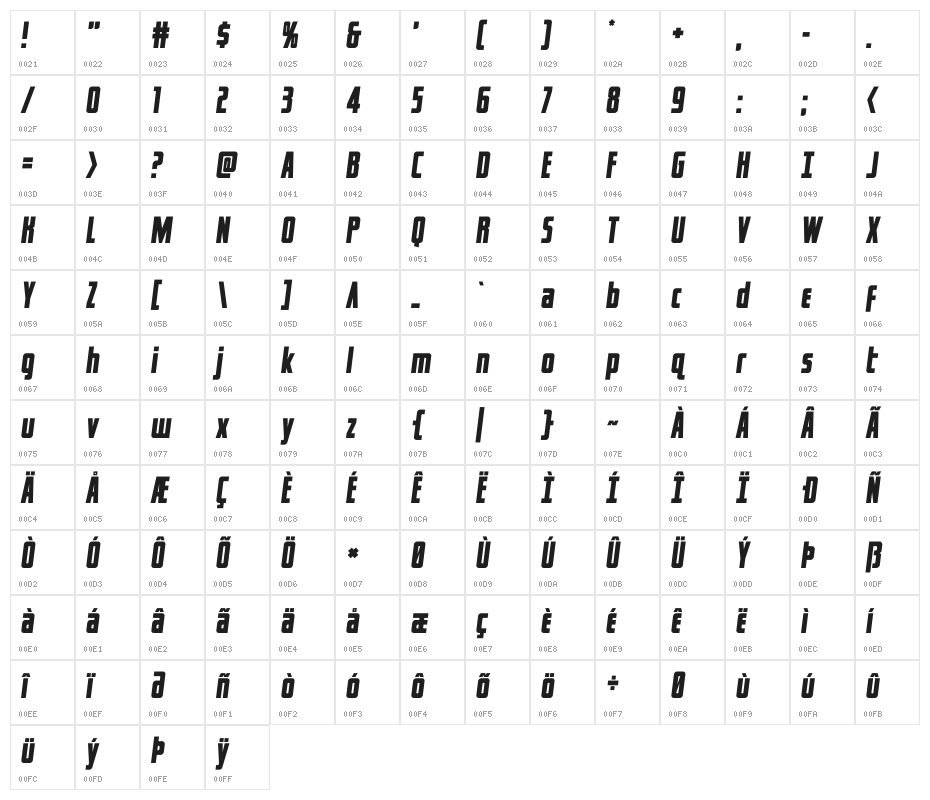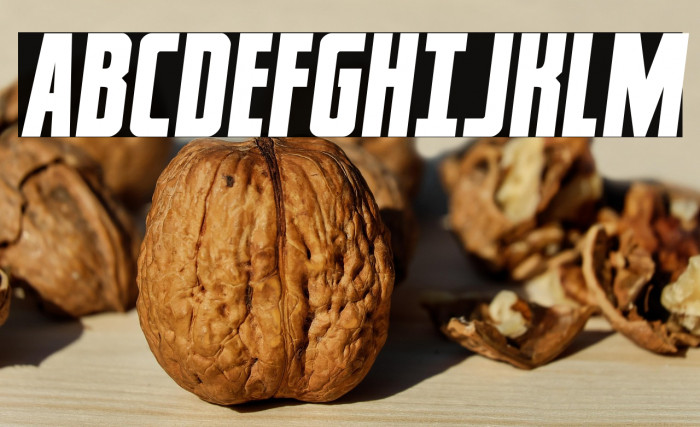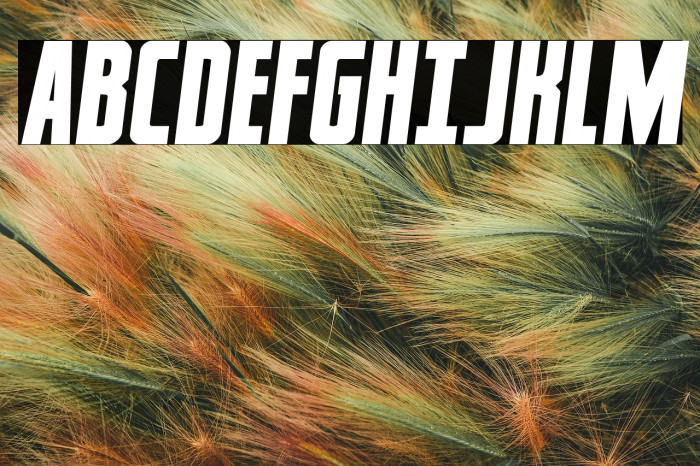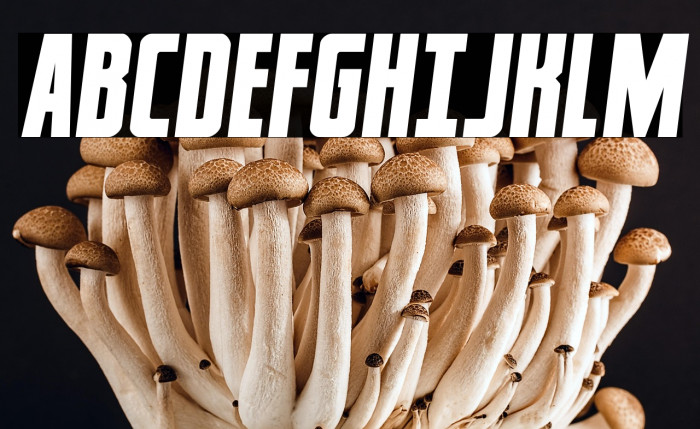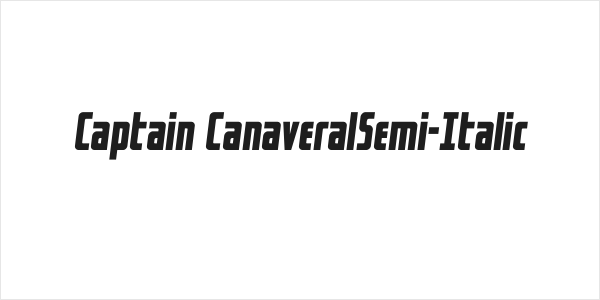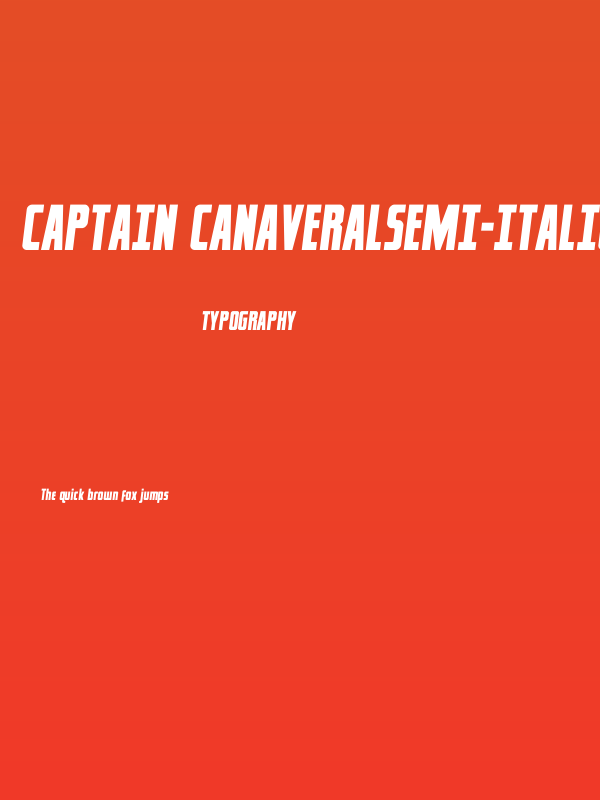
Captain CanaveralSemi-Italic Font
Captain CanaveralSemi-Italic Description
This font features a bold and dynamic design with a semi-italic slant, giving it a sense of motion and energy. The characters are robust and slightly condensed, with sharp angles and clean lines that create a modern and impactful appearance. The uppercase letters are particularly striking, with a strong presence that commands attention. The lowercase letters maintain the same boldness, ensuring consistency across text. Numbers and special characters are designed with the same attention to detail, making them easily readable and visually appealing. This font is ideal for projects that require a bold statement, such as headlines, posters, and branding materials.
| Proposed Projects | Ideal for headlines, posters, branding, and any project needing a bold, modern look. |